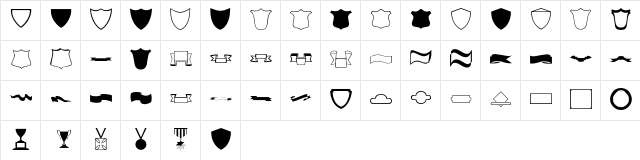
Awards Regular
Design Context for Awards Typeface
Awards is a composed and adaptable typeface that performs quietly and consistently across a wide range of design contexts.